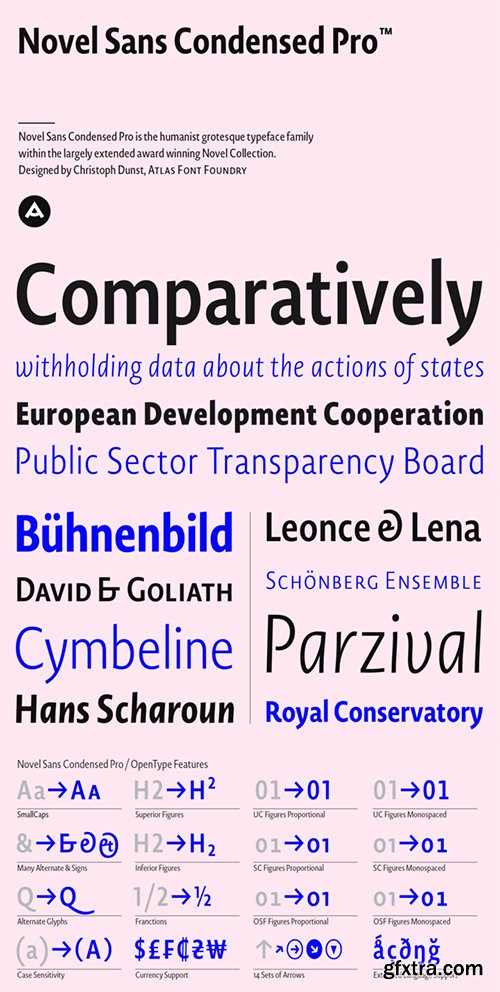
Novel Sans Condensed Pro is the humanist grotesque typeface family within the largely extended award winning Novel Collection, also containing Novel Pro, Novel Sans Pro, Novel Mono Pro, Novel Sans Rounded Pro and Novel Sans Office Pro.Novel Sans Condensed Pro has a carefully attuned character design and a well balanced weight contrast. Classic proportions and the almost upright italic makes Novel Sans Condensed Pro being a space saving, modern humanist with the calligraphic warmth of a real italic. Many similarities with the other typeface families within the Novel Collection enable designers to combine the families and reach highest quality in typography. .